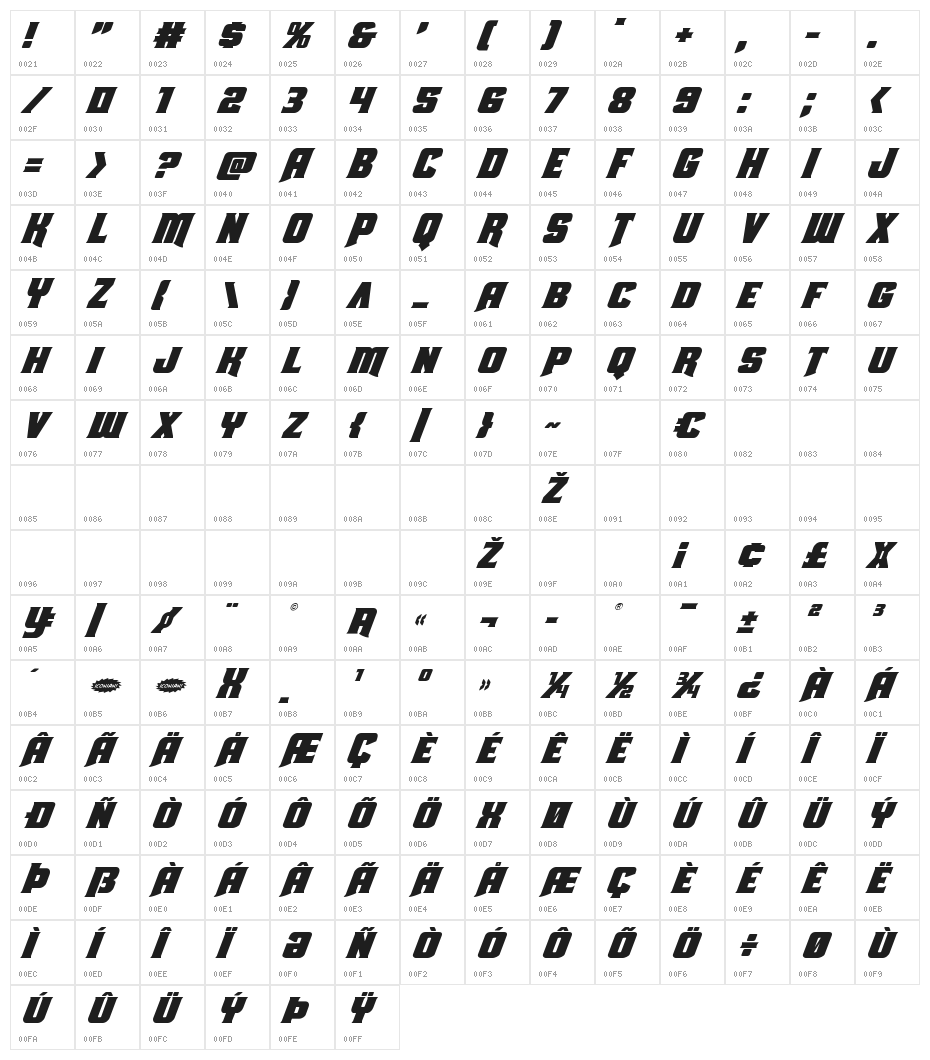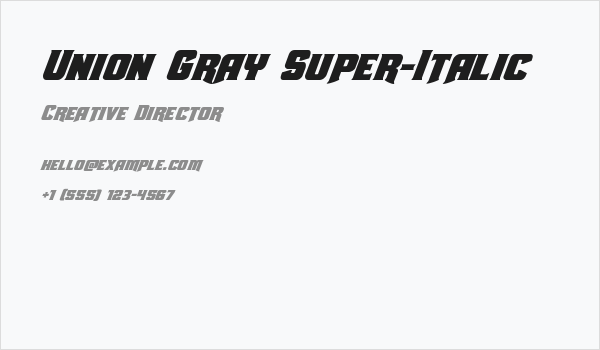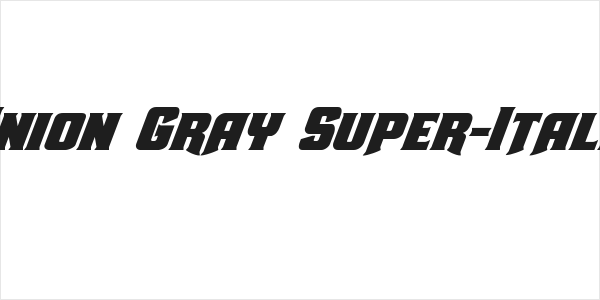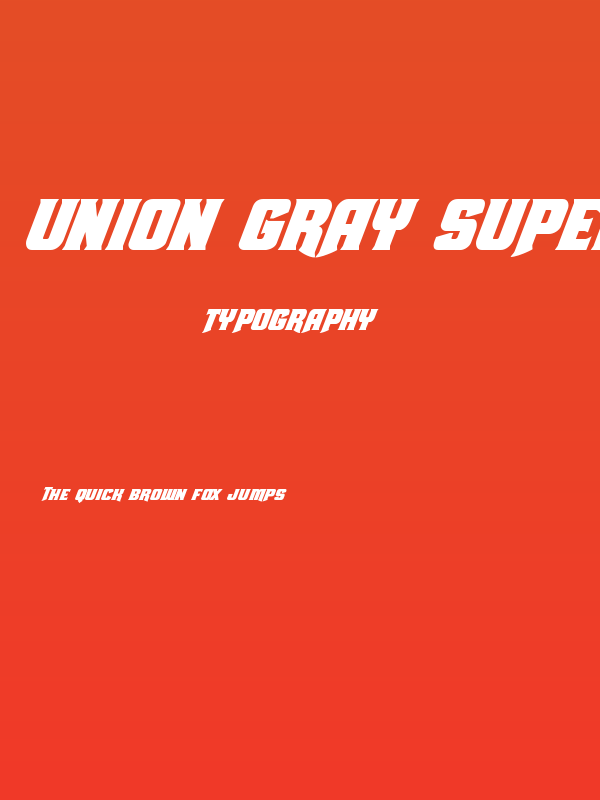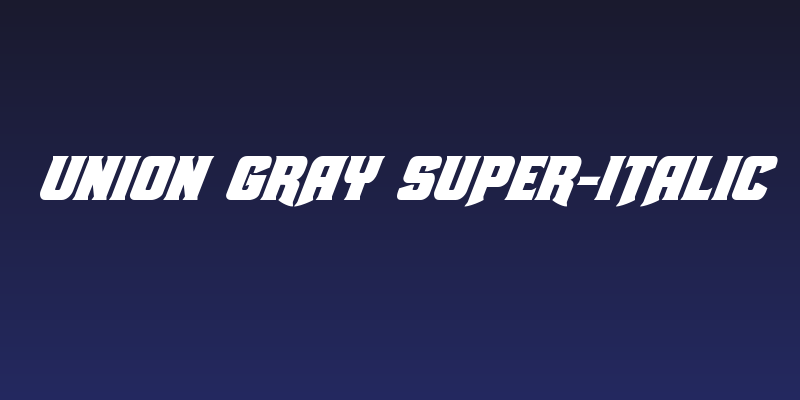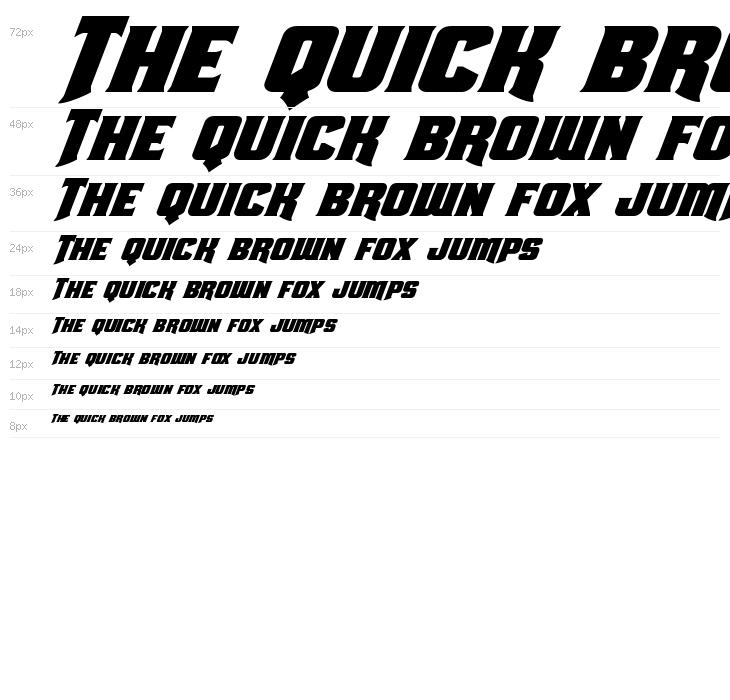
Union Gray Super-Italic Font
Union Gray Super-Italic Description
This font features a bold, italicized style with a strong presence and dynamic slant. The characters are sharply angled, giving them a sense of motion and energy. The uppercase letters are particularly striking, with wide, blocky forms that command attention. The lowercase letters maintain the same boldness, ensuring consistency across text. Numbers and special characters are designed to match the assertive style, making them suitable for impactful displays. The overall design is modern and edgy, perfect for projects that require a bold statement.
| Proposed Projects | Ideal for sports branding, action movie posters, video game titles, and dynamic advertising campaigns. |